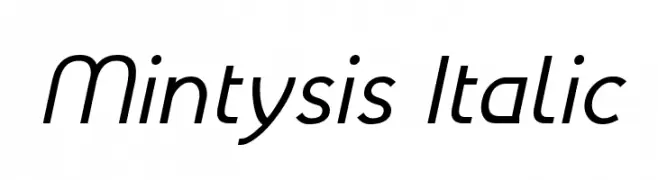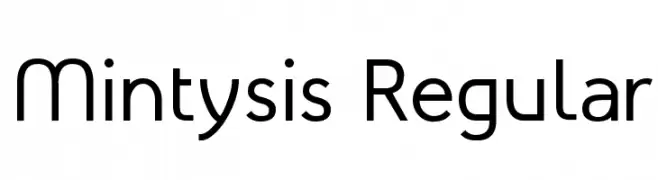
An elegant italic font with smooth, flowing lines and a refined appearance.
A modern, italic sans-serif font with a sleek and dynamic style.
A clean, modern sans-serif font with smooth curves and uniform strokes.
A modern sans-serif font with clean lines and balanced proportions.
A modern, italic font with clean lines and a dynamic style.
A modern sans-serif font with clean lines and excellent readability.
A bold, oblique sans-serif font with a modern and dynamic style.
A modern, oblique sans-serif font with clean lines and a dynamic slant.
A modern, oblique sans-serif font with balanced proportions and clean lines.
A modern, clean sans-serif typeface with balanced proportions and uniform stroke width.